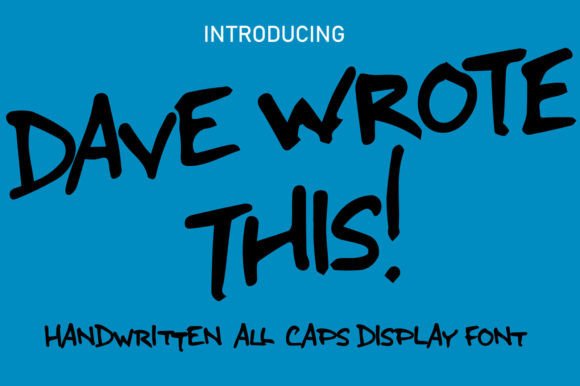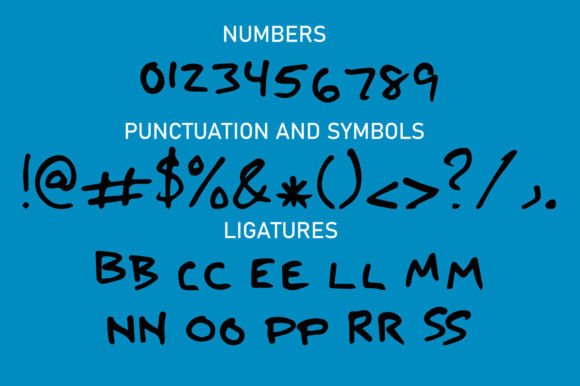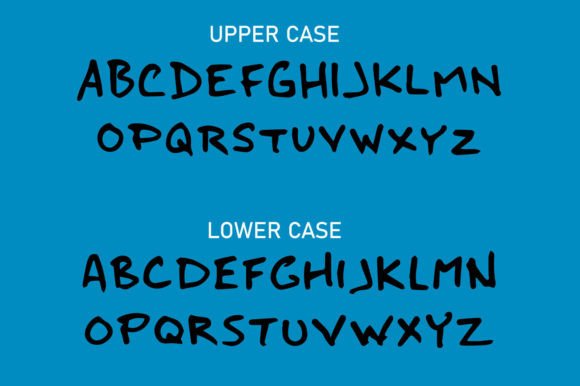
Dave Wrote This Font
About Dave Wrote This Font
Dave Wrote This Font is a unique handwritten typeface that captures the charm of natural writing. Featuring two complete sets of all capital glyphs, this font helps you add a genuine handmade feel to any project. Whether you’re designing logos, posters, or personal stationery, Dave Wrote This brings a casual and authentic touch that feels truly special.
Distinctive Handwritten Character
What makes Dave Wrote This stand out is its carefully crafted hand-drawn style. Each letter looks like it was written with a marker or pen, bringing a sense of warmth and personality to your designs. The slightly irregular lines and organic shapes make every word feel approachable and human.
Because it’s an all-caps font, it’s perfect for headlines, labels, and short text that needs impact. The clean yet handcrafted look also ensures readability in both print and digital formats.
Two Sets of Capital Letters
One of the highlights of Dave Wrote This Font is the inclusion of two complete sets of uppercase glyphs. This feature allows you to mix and match letters for a more natural and varied look, just like real handwriting. It prevents repetition and keeps your text visually interesting.
Switch between the two styles to create dynamic compositions. For example:
• Use the first set for the main text.
• Alternate with the second set for emphasis or highlights.
This flexibility makes the font more versatile than most simple handwritten styles.
Perfect for Creative Projects
Dave Wrote This is designed for a wide range of applications. It shines in creative and informal contexts where you want your designs to feel personal and engaging. Here are a few ideas:
• Posters & Flyers: Draw attention with bold, handwritten headlines.
• Greeting Cards: Give your messages a warm, heartfelt tone.
• Scrapbooking: Add captions that feel handwritten and real.
• Logos & Branding: Make your brand approachable and unique.
• Merchandise: Use it on mugs, t-shirts, or stickers for a crafted look.
• Social Media Graphics: Stand out in the feed with authentic typography.
No matter what you create, Dave Wrote This adds a signature touch.
Make Your Words Feel Genuine
Dave Wrote This Font is more than just a typeface—it’s a way to bring authenticity into your projects. The all-caps style combined with the dual glyph sets means you can build designs that look handmade, fresh, and full of life.
If you’re ready to stand out with text that feels real and personal, Dave Wrote This will be your go-to font for all your creative ideas.